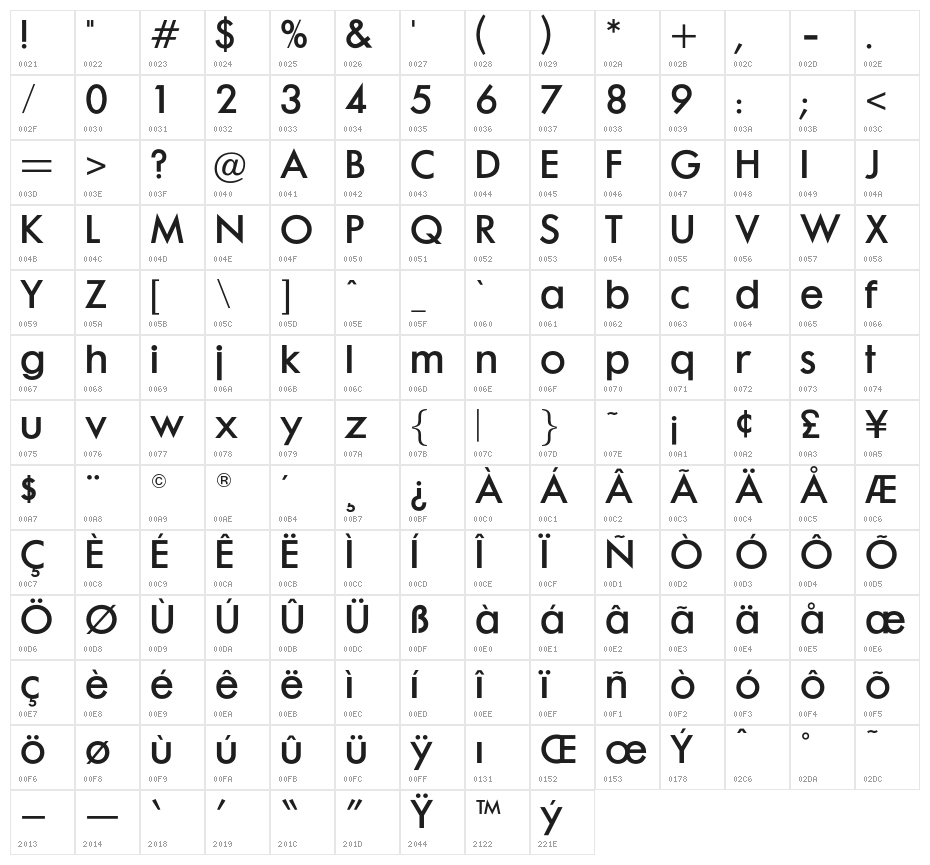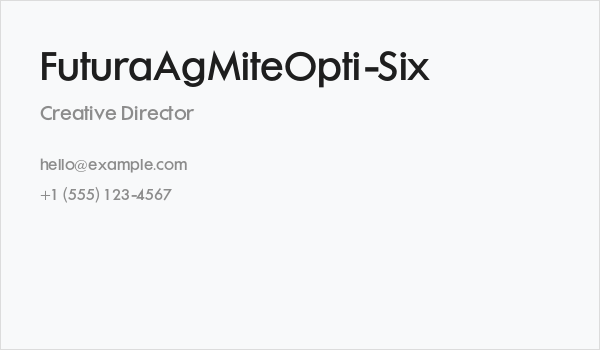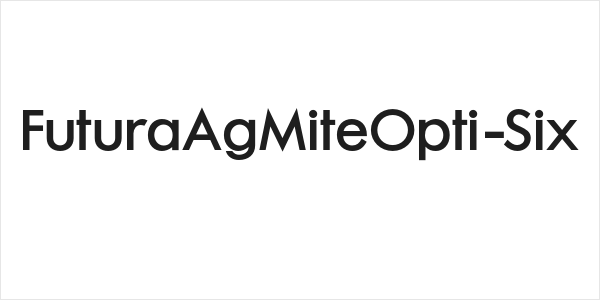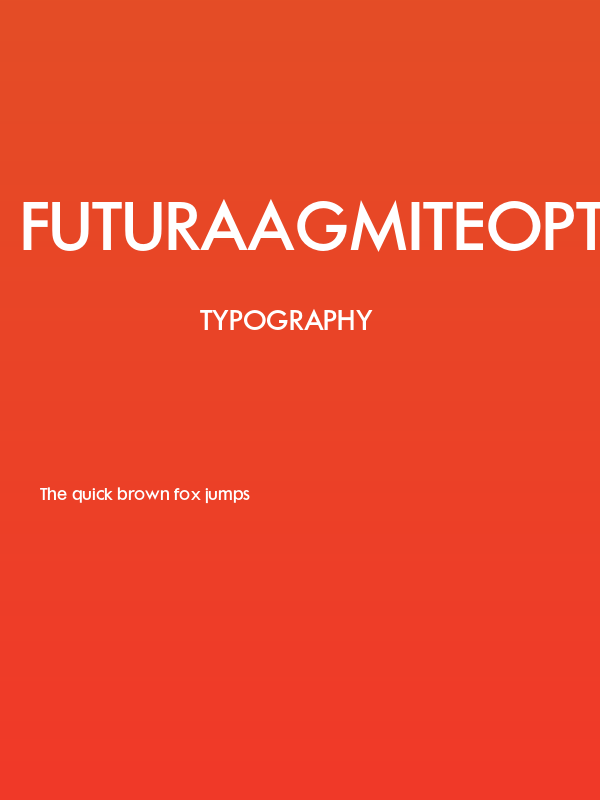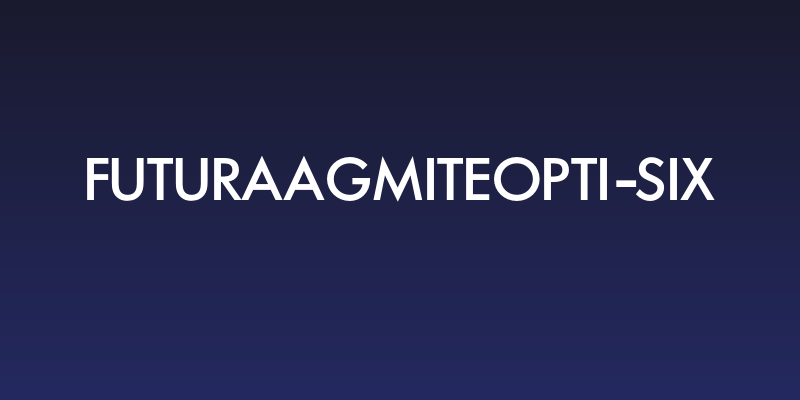
FuturaAgMiteOpti-Six Font
FuturaAgMiteOpti-Six Description
This typeface is characterized by its clean, geometric lines and modern aesthetic. The uppercase letters are bold and uniform, with a consistent stroke width that gives them a strong presence. The lowercase letters maintain the same geometric precision, offering a harmonious balance between the characters. The numerals are clear and easy to read, matching the overall style of the alphabet. Special characters are well-integrated, maintaining the font's sleek and contemporary look. This typeface is versatile, suitable for a variety of design applications where clarity and modernity are desired.
| Use Case | Headlines, Logos, Digital interfaces |
| Proposed Projects | Ideal for branding, advertising, editorial design, and digital interfaces. |